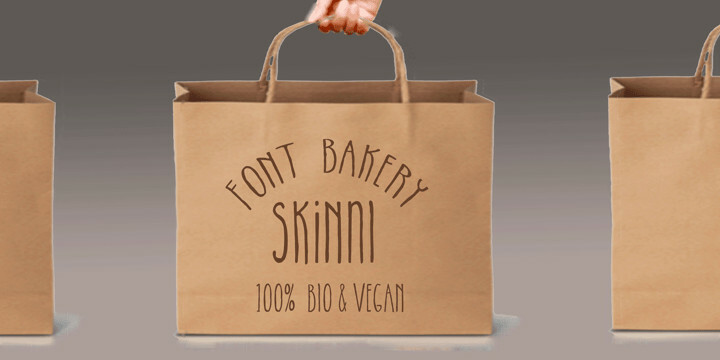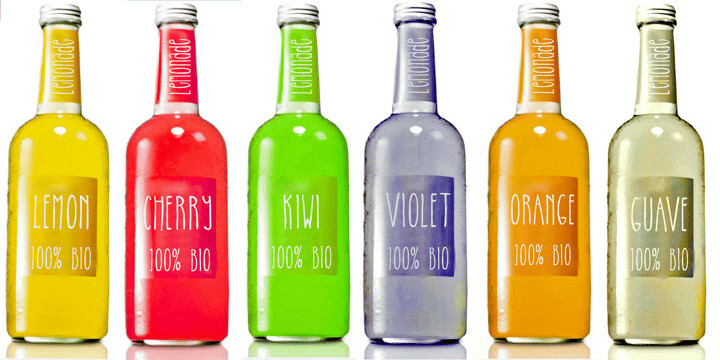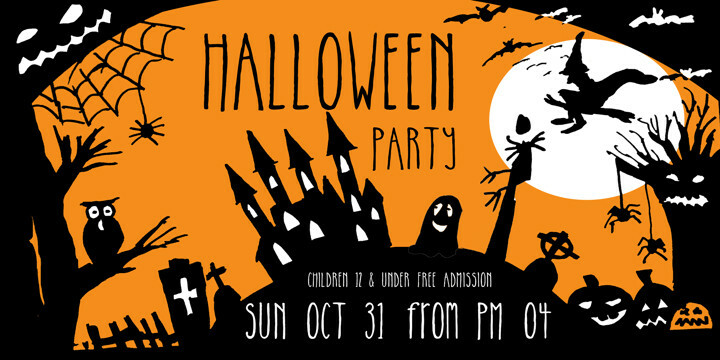
Skinni Font
Skinni FontA handcrafted font with extremely narrow letters, suitable for headings, logos, brands, menus, invitations, but can also be used with lowercase letters.